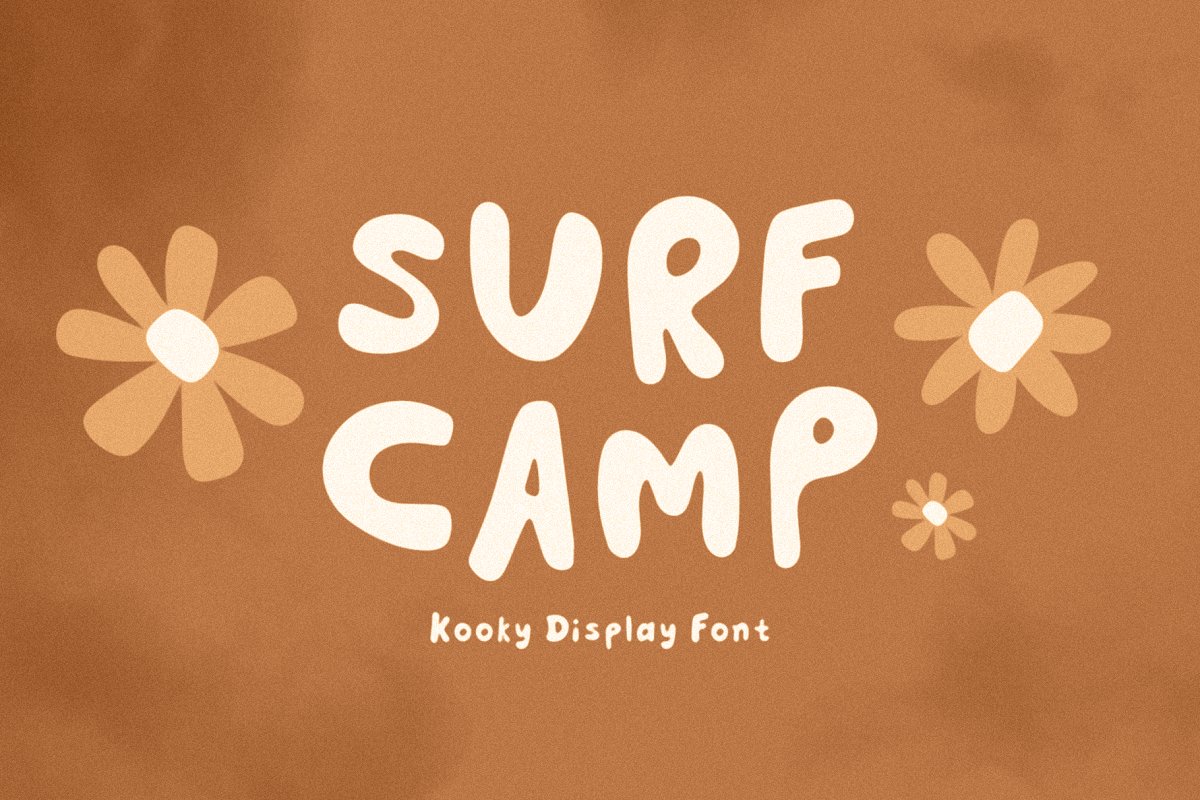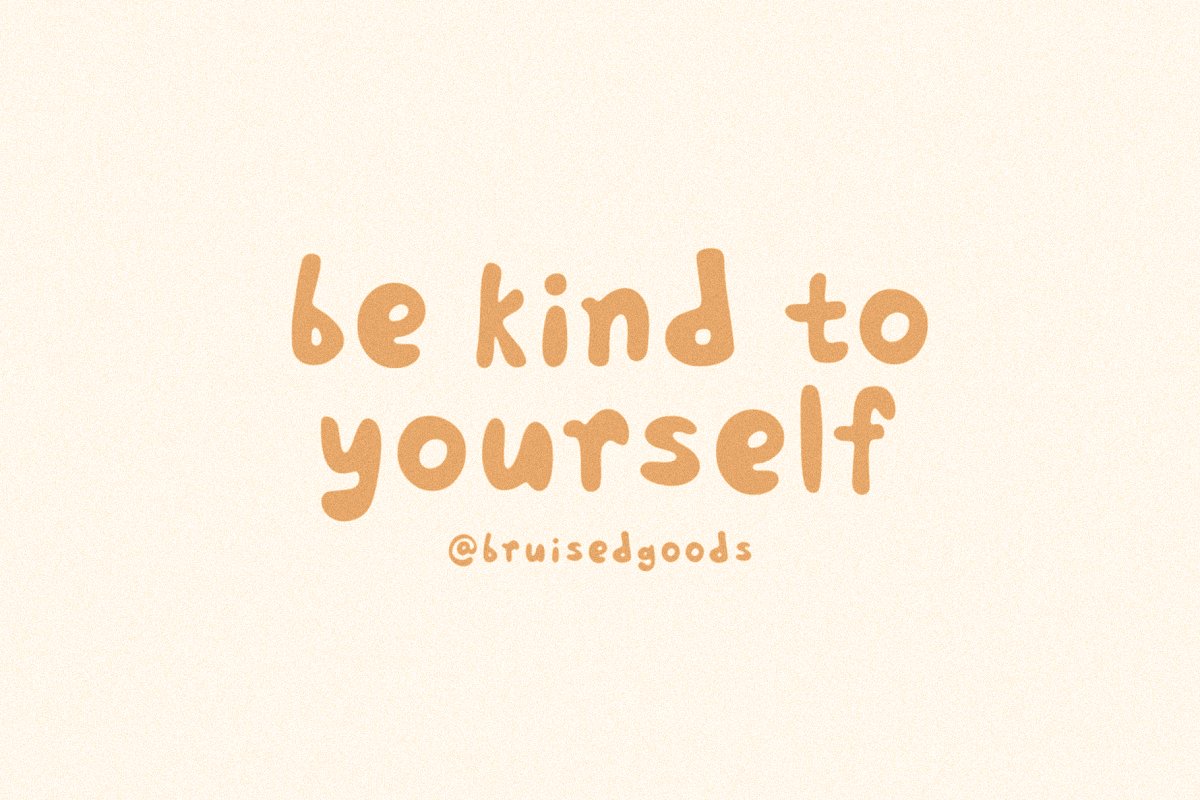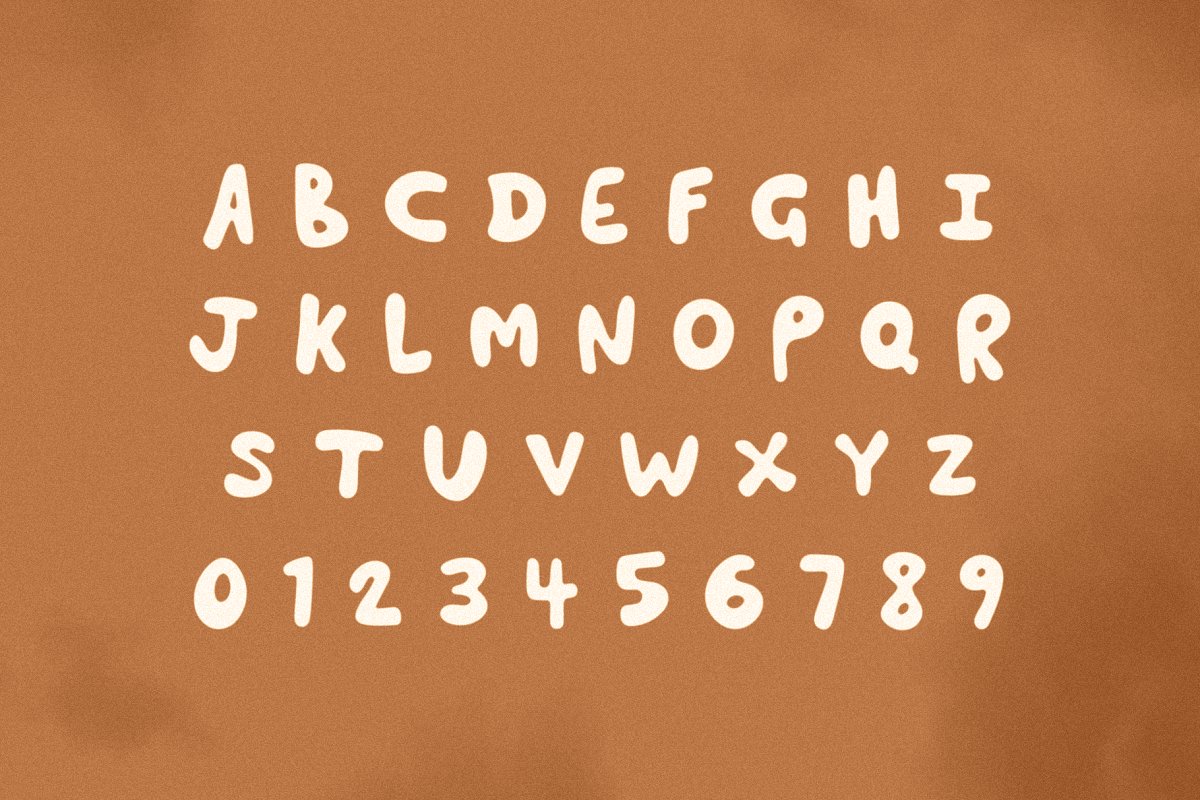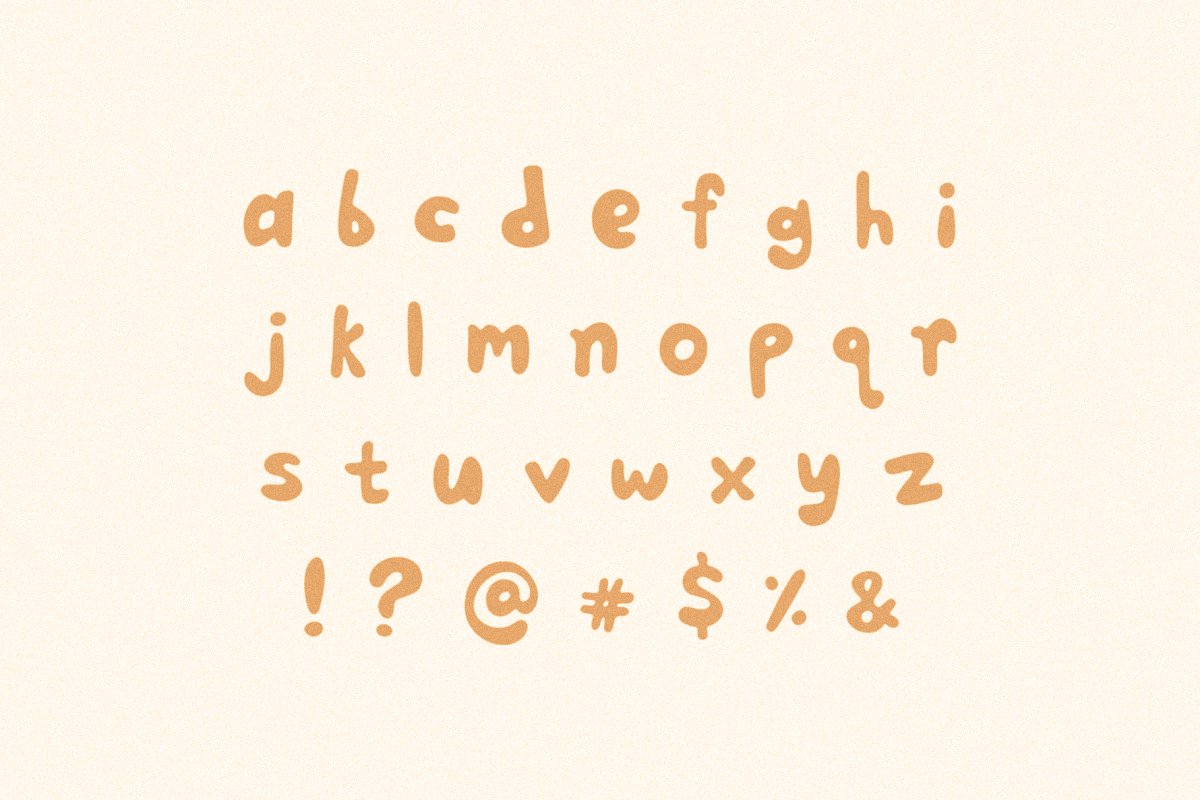
About the Surf Camp
SURF CAMP – A hand crafted, kooky display font, inspired by big waves and tiny surf groms, Designed by Lauren Kilbane in sunny south Florida, USA, Use this font for: ads, album covers, apparel, cards, flyers, invitations, logos, menus, merchandise, packaging, signage, web, and more, TTF & OTF filesUppercase and Lowercase lettersStandard English alphabetNumbers, Currency Symbols, Standard PunctuationCOMMERCIAL & EXTENDED LICENSES are required for web fonts, apps, ebooks, broadcast television, commercial exhibition, film, gaming, software embedding, customized print on demand products, etc